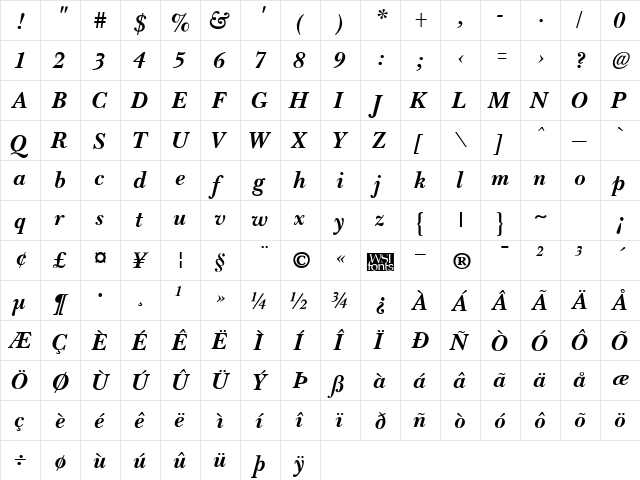
Basset BoldItalic
Design Context for Basset Typeface
Basset offers clean, dependable letterforms without strong stylistic allegiance, making it a practical choice for designers who need flexibility. The dynamic lean of this cut emphasises speed and emphasis in any layout. Its bold stroke weight gives it real presence on the page.